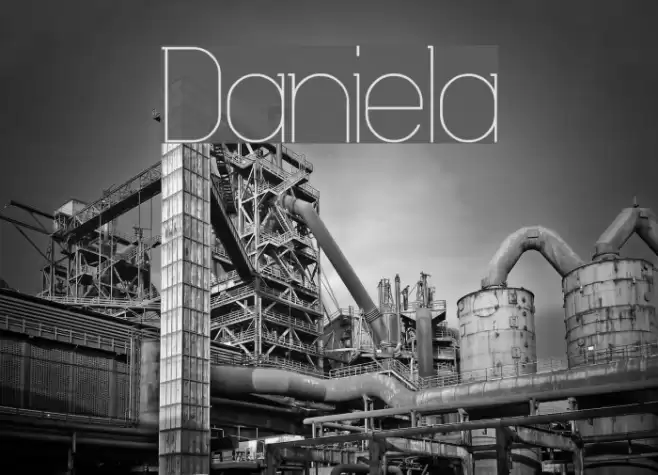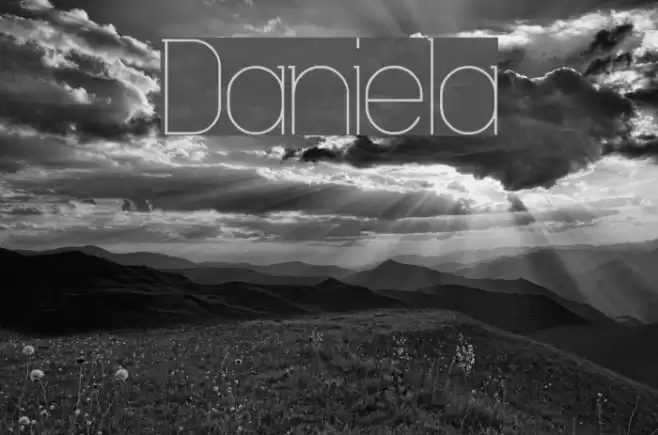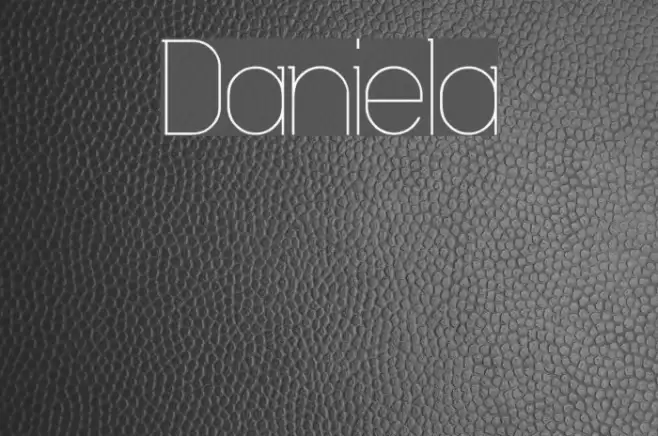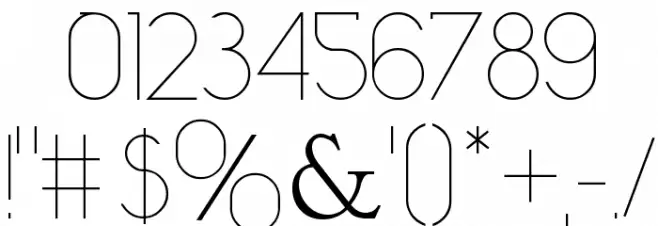
Daniela Font
Daniela Description
This font features a clean and modern aesthetic with thin, uniform lines that create a sense of elegance and simplicity. The characters are well-proportioned, with a geometric influence that is evident in the consistent stroke widths and minimalistic design. The uppercase letters are tall and slightly narrow, while the lowercase letters maintain a similar width, contributing to a cohesive appearance. The numerals are clear and distinct, matching the overall style of the alphabet. Special characters are included, maintaining the same thin line weight and geometric style, making this font versatile for various applications.
A modern, geometric font with thin, uniform lines and a clean aesthetic from Uncategorized fonts.
- Proposed Projects: Ideal for branding, editorial design, and digital interfaces where a modern and minimalist look is desired.